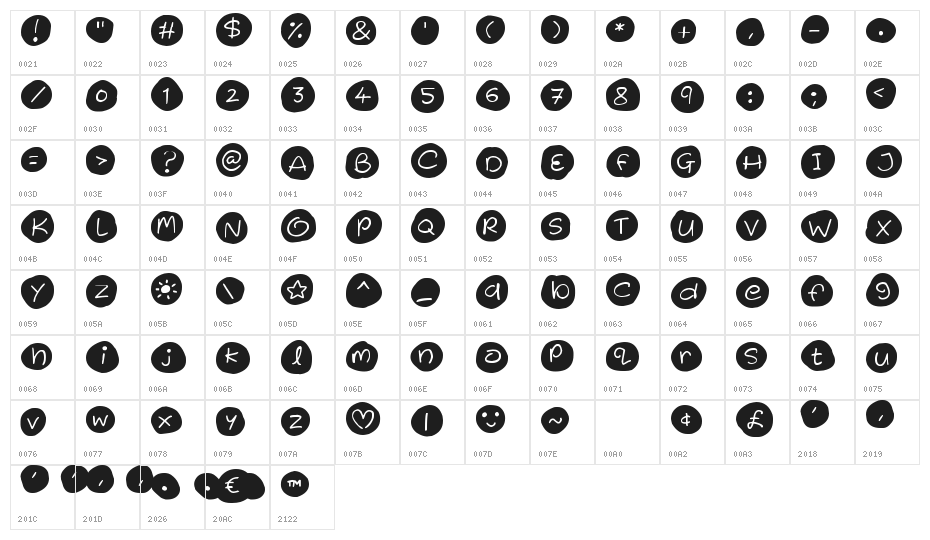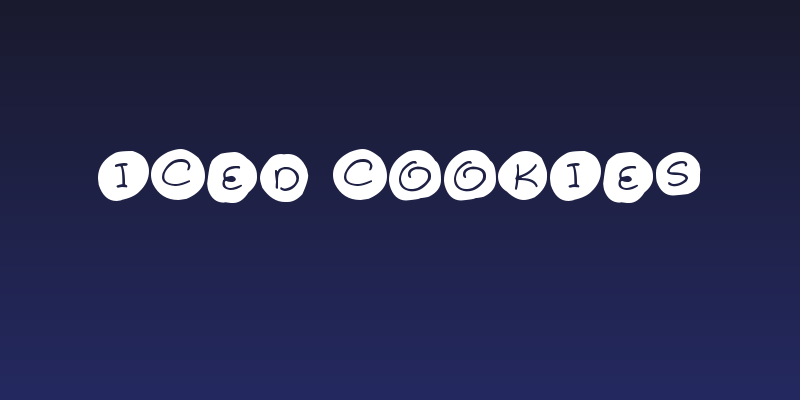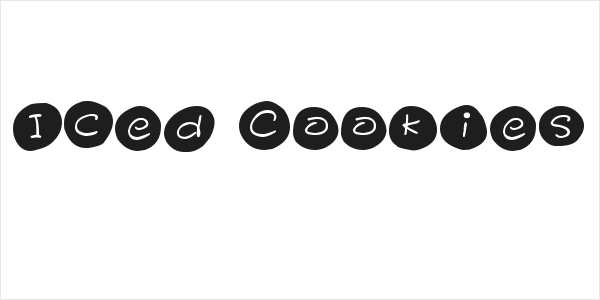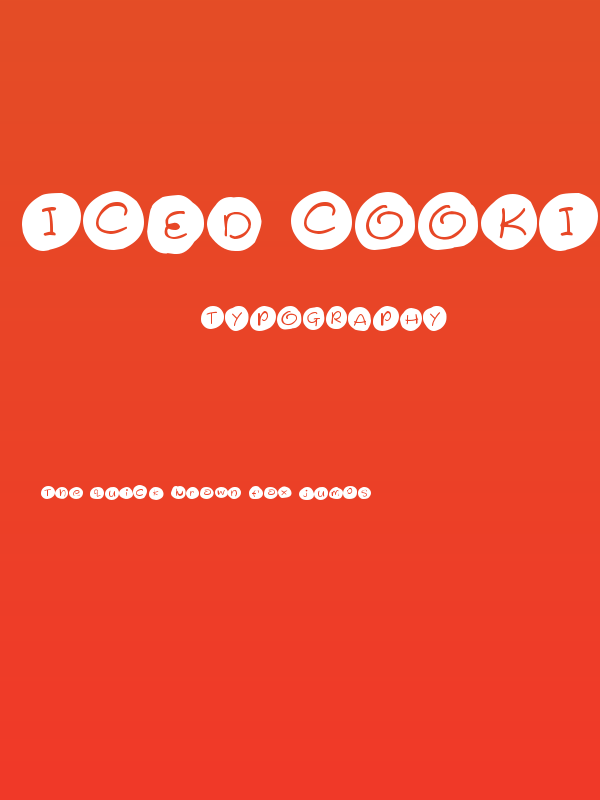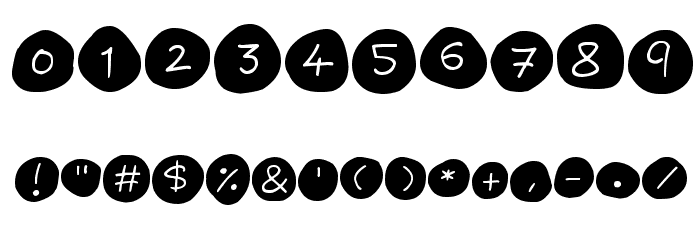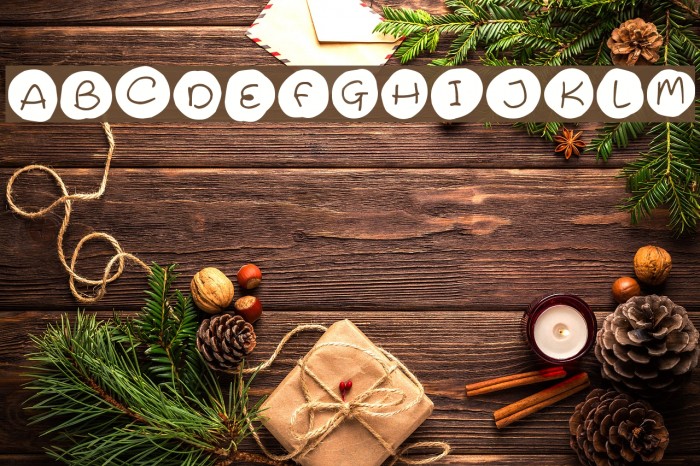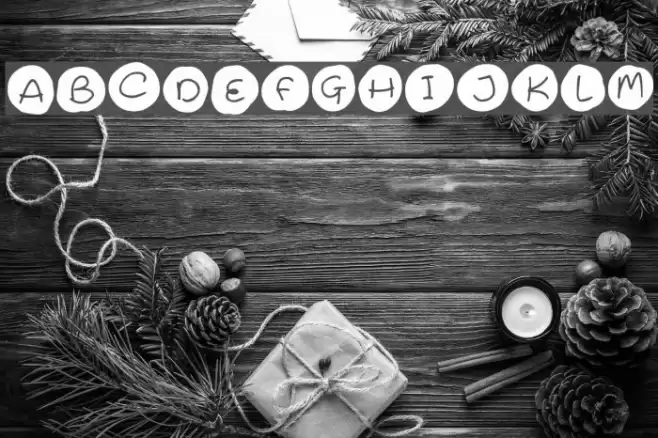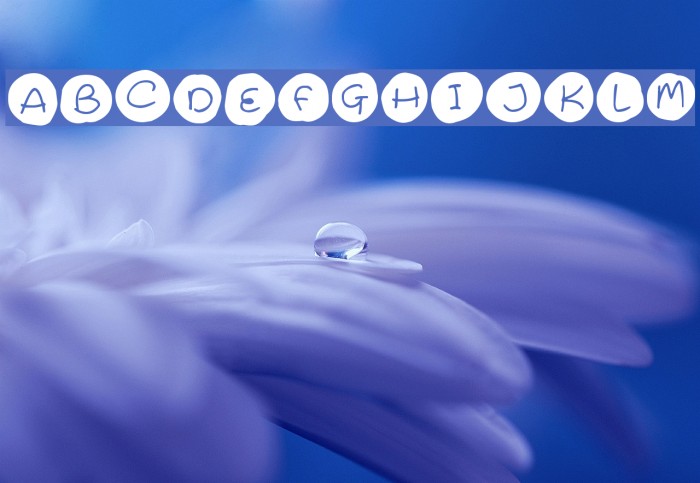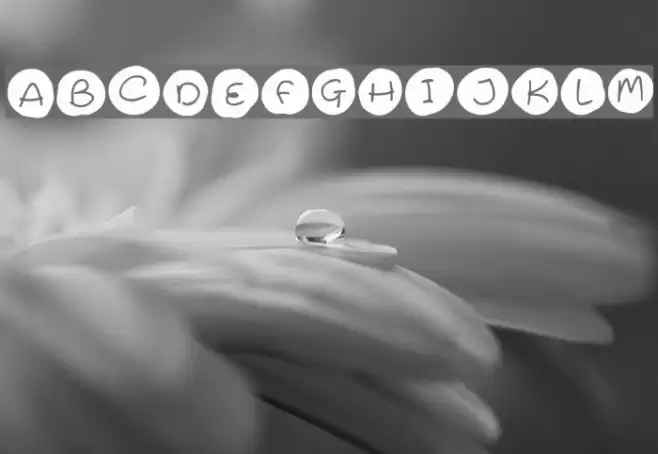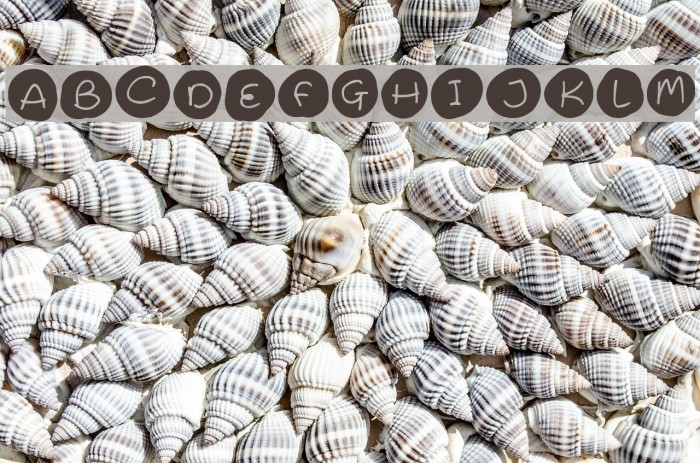
Iced Cookies Font
Iced Cookies Description
This playful and whimsical font features characters encased in circular shapes, resembling iced cookies. Each letter and symbol is presented in a bold, rounded style, giving it a fun and approachable appearance. The font maintains a consistent thickness throughout, with a hand-drawn aesthetic that adds a personal touch. The uppercase and lowercase letters are distinct yet harmonious, while the numbers and special characters follow the same playful design. This font is ideal for projects that require a lighthearted and creative vibe.
| Overall Style | Playful, Whimsical |
| Proposed Projects | Ideal for children's books, party invitations, playful branding, and creative posters. |